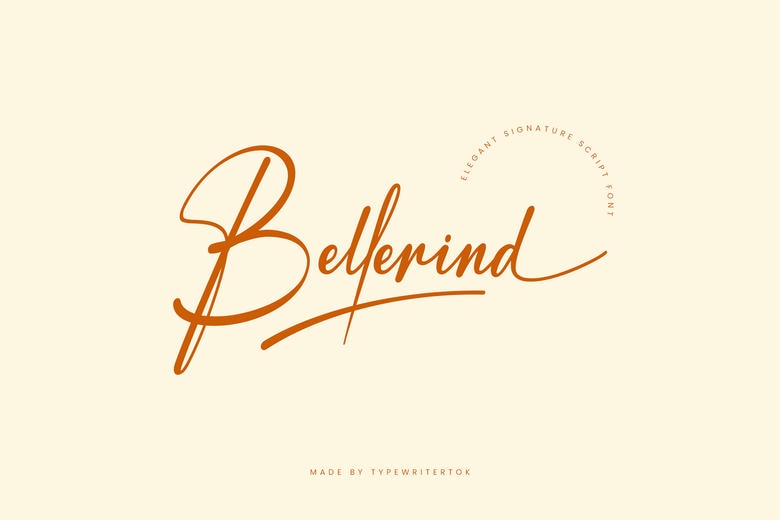
Bellerind Font
Bellerind is a graceful signature script font, which is a blend of smooth movement and classic glamour. It is ideal when it comes to wedding invitations, personal branding, logos, and stationery as it resembles real handwriting in the stylish touch.
Its flowing lines and advanced contours produce an upscale handwritten appearance, which is perfect in upscale designs. Bellerind adds a classy touch and natural motion to any creative project to add charm and add femininity to it.
Bellerind Handwritten Script Font